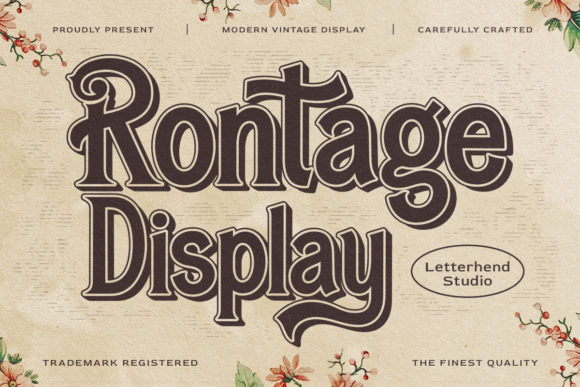
Step into the realm of vintage elegance with Rontage Display Font, a captivating serif typeface that exudes nostalgia and sophistication.
Picture this: a bygone era where beauty was found in the intricate details of signage, labels, and invitations. Rontage Display Font transports you back in time, evoking the charm and grace of a simpler era.
The strokes, adorned with delicate swirls, dance across the page, creating a visual feast for the eyes. This font is a masterpiece, crafted with precision and artistry, to lend a touch of timeless elegance to your creative projects.
Whether you're a designer crafting a captivating logo, an artist painting a typographic masterpiece, or a writer seeking the perfect font to bring your words to life, Rontage Display Font is your muse.
Its versatility extends beyond the traditional realms of design, making it a perfect choice for fashion, makeup, stationery, novels, and advertising. Imagine your designs adorned with the allure of Rontage Display Font, captivating your audience with its timeless beauty and vintage charm.
Unlock the secrets of the past and embrace the future with Rontage Display Font. Let your creativity soar as you explore the endless possibilities it offers. Transform your designs into works of art, infused with the spirit of nostalgia and a touch of modern elegance.